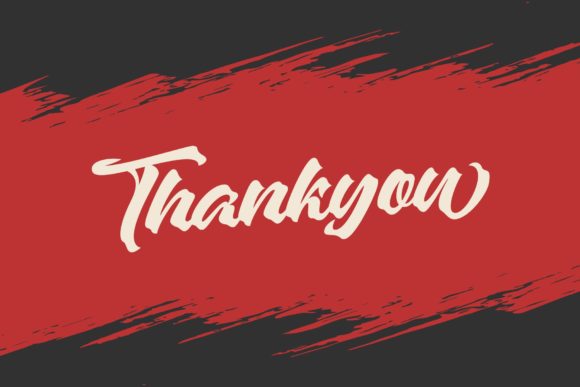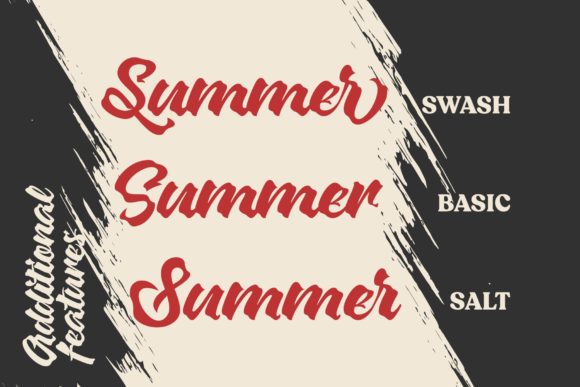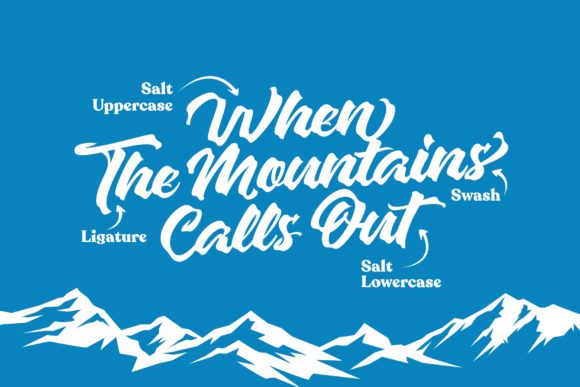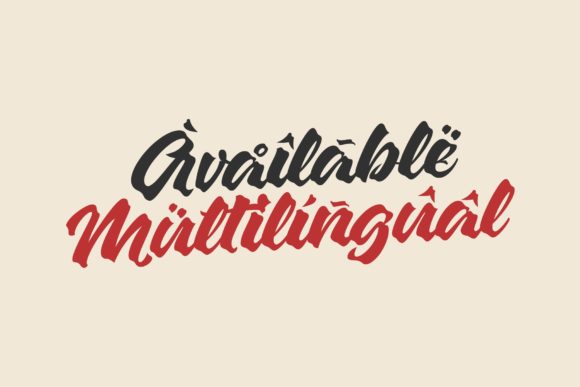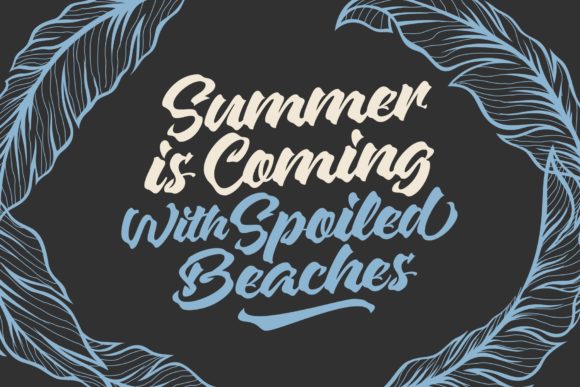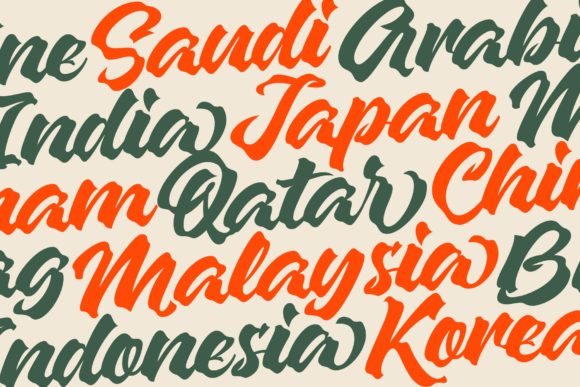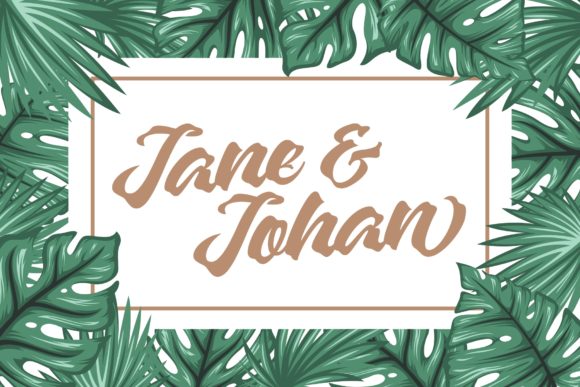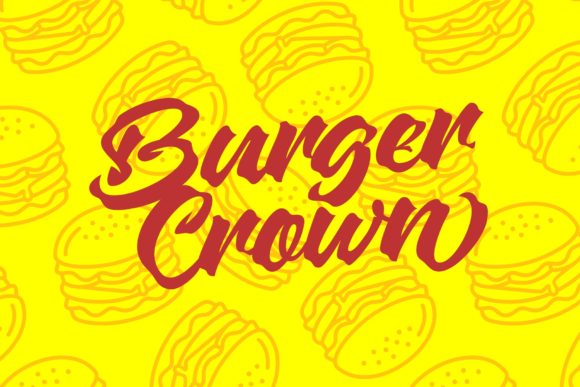
HomeScript FontsZapan Script Font Script Fonts Zapan Script Font FacebookXPinterestWhatsApp Zapan Script Font Poster 2 Zapan Script Font Poster 3 Zapan Script Font Poster 4 Zapan Script Font Poster 5 Zapan Script Font Poster 6 Zapan Script Font Poster 7 Zapan Script Font Poster 8 Zapan Script Font Poster 9 Zapan Script Font Poster 10 About Zapan Script Font Zapan is a bold and powerful script with a timeless feel. DOWNLOAD ON CREATIVE FABRICAThis font is sold and delivered by Creative Fabrica. Font Canyon may earn a commission if you buy through this link. People also explored Brahams Font The Horison Font Frivolous Dasmeeta Salmah Font The Vinttiere Font Corporate S Std Butterfly Font The Catalony Font Thought 322 0 TagsZapan Script Font Previous articleJust Blossom FontNext articleHappy Birthday Font LEAVE A REPLY Cancel reply Comment: Please enter your comment! Name:* Please enter your name here Email:* You have entered an incorrect email address! Please enter your email address here Website: Save my name, email, and website in this browser for the next time I comment. Personal Use Free Kensin Personal Use Free Read more about this font Fontmageddon Personal Use Free Read more about this font Adrenaline Personal Use Free Read more about this font Quentin Personal Use Free Read more about this font BLOG Modern Sans-Serif Fonts That Brands Love in 2025 In 2025, modern sans-serif fonts remain a top choice for brands looking to project clarity, professionalism, and... How to Install and Use Fonts on Windows, macOS, and Web Projects How to Cut Any Font on Cricut: Convert a Font to SVG (Free) The 10 Best Handwriting Fonts to Add Personality to Your Designs